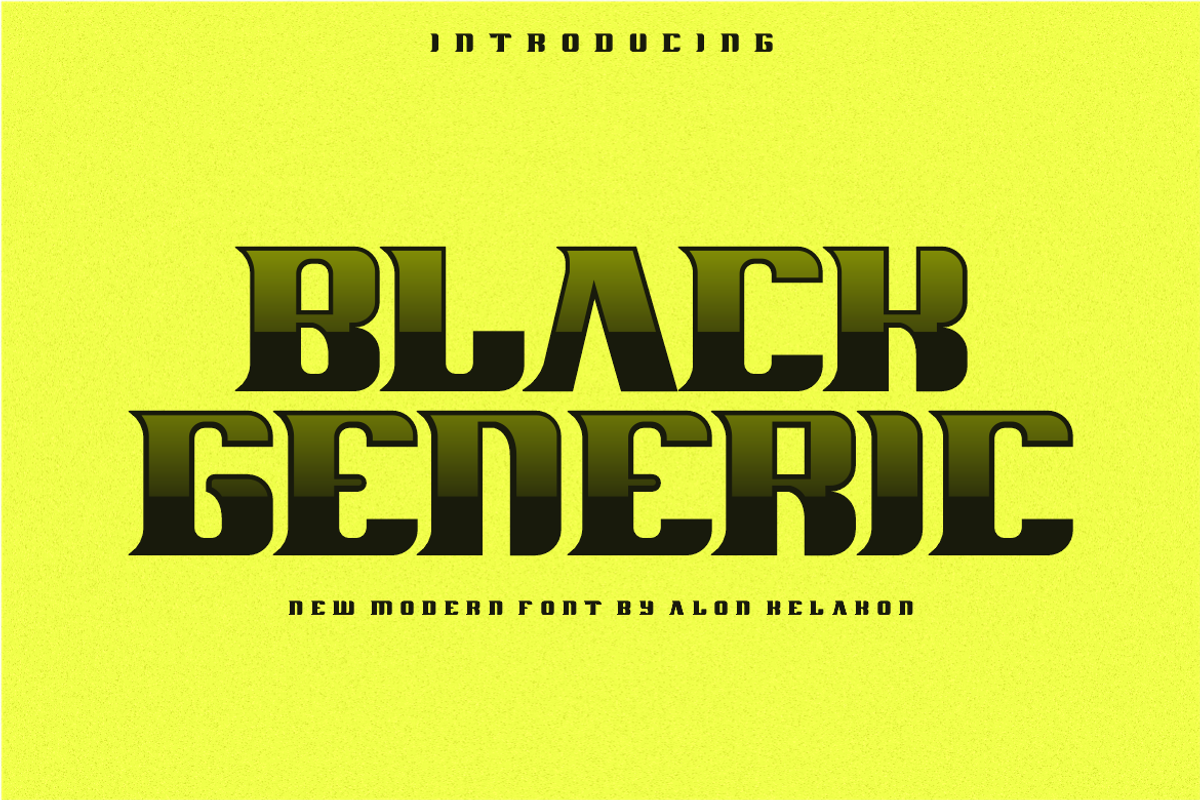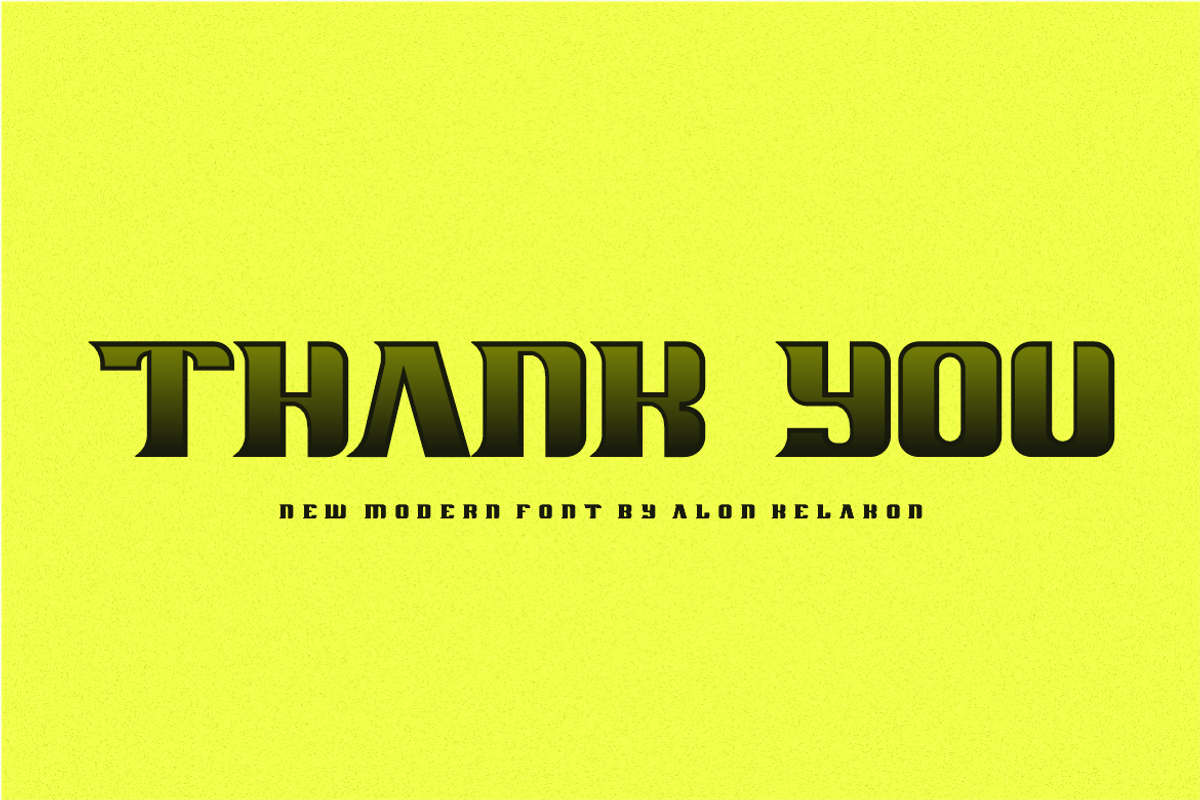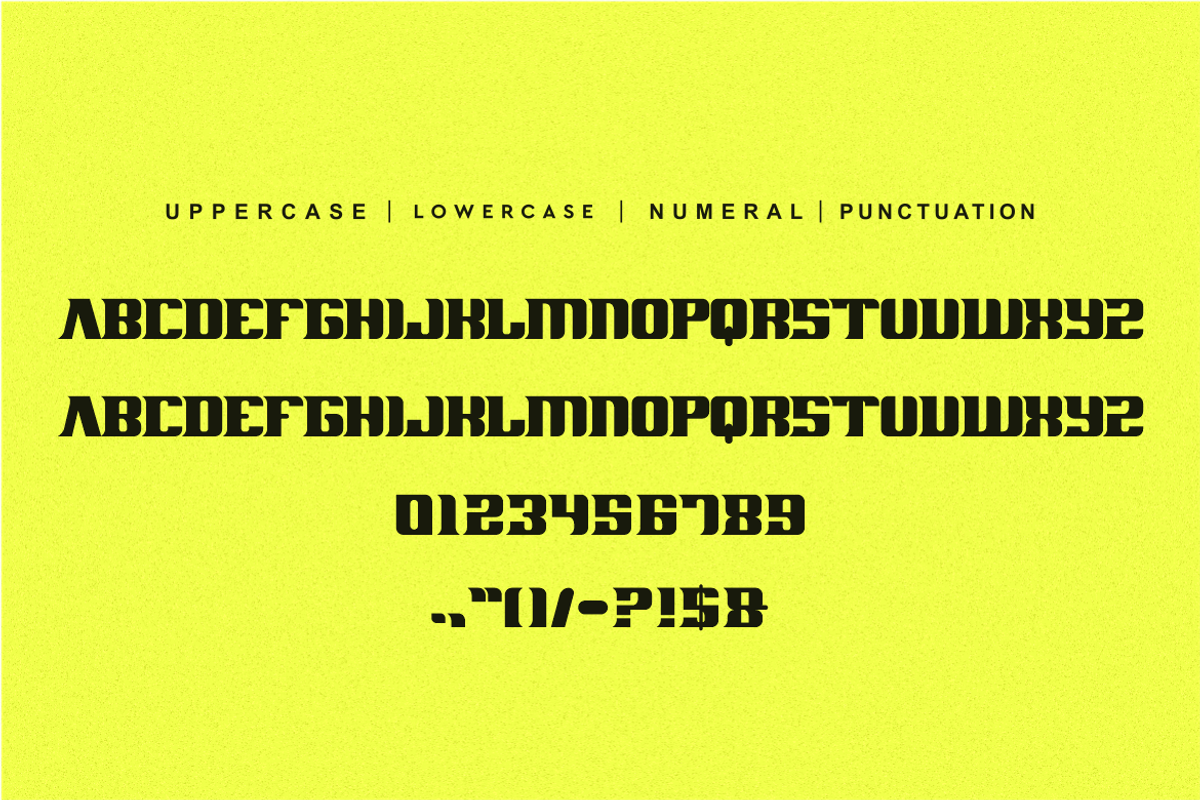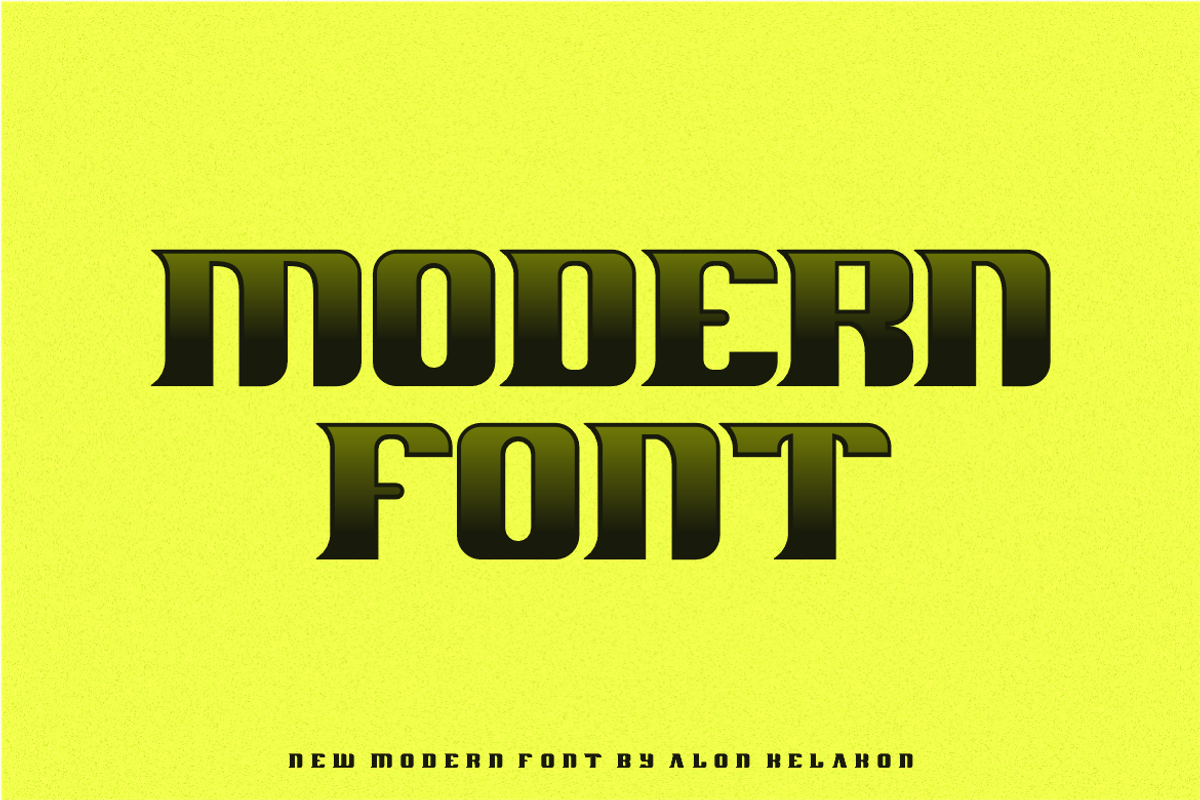
Black Generic Font
Black Generic Font Font is unique . Ready to use for your design like labeling, clothing, movie sceen, poster, movie title, gigs, album covers, logos, and much more.